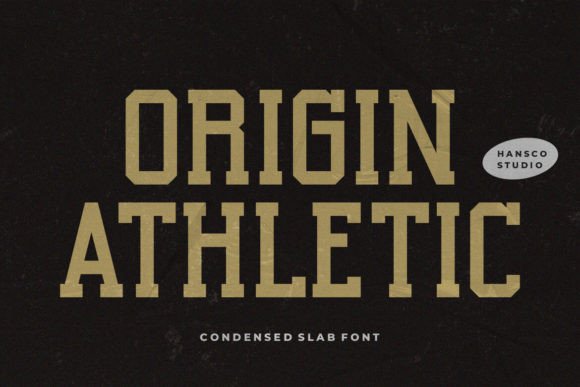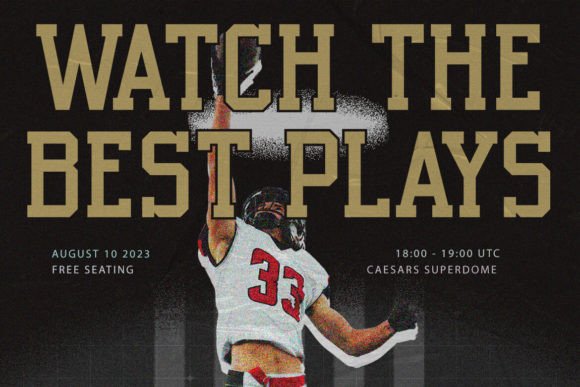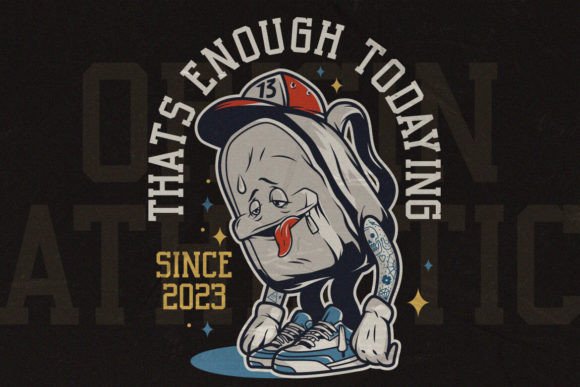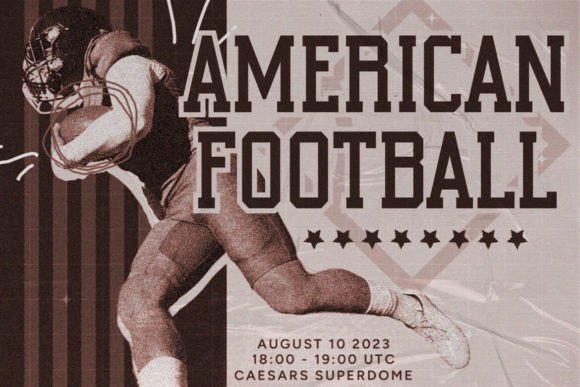
About Origin Athletic Font
Origin Athletic is a Varsity / Jersey font style. Elevate your design projects to new heights with our premium digital fonts tailored for Canva and Cricut users. Whether you’re designing for personal pleasure or pursuing a professional endeavor, our diverse selection of high-quality fonts will help you bring your creative visions to life. Don’t settle for ordinary fonts when you can make your designs extraordinary. Unlock your design potential and grab our digital font product today. With our fonts, you’re not just designing; you’re crafting experiences, sparking emotions, and leaving a lasting impact. Get started and let your creativity flow like never before!